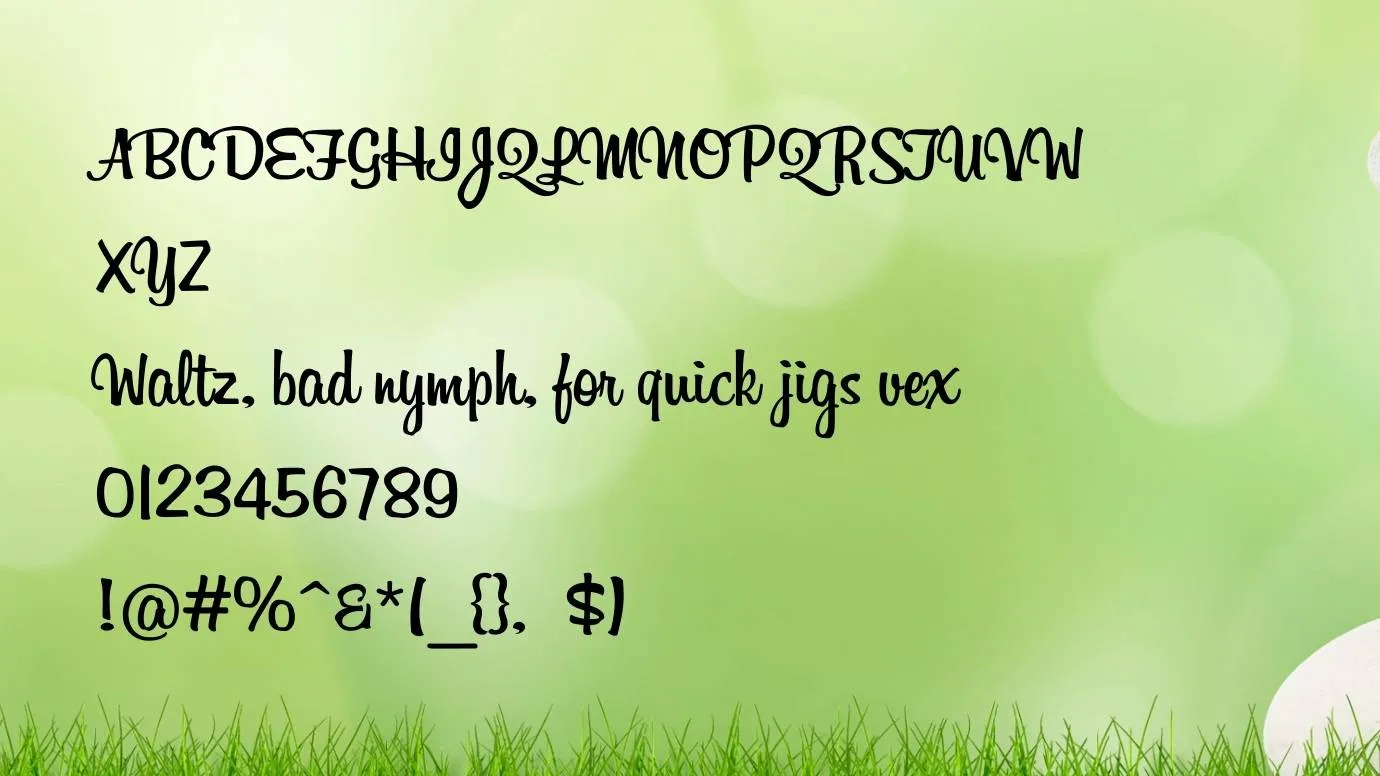
Billabong Font is a fancy display typeface that was designed using attractive brushes and a hand-drawn appearance. This font family comes with many different weights such as bold, italic, bold italic, regular, and many more. This typeface works great for many different designs with the pairing of cula font. This font also has vast lingual support and different Opentype features that can be found in both Adobe and Google Font libraries.
This font got very popular in no time because of the attractive glimpse and use of this typeface in the Instagram logo. This typeface is famous and is known for its pairing and copy-paste functions. Due to the clean nature of this typeface, it is used by many designers all around the World. It is a great typeface for making many different designs such as Posters, Logos, Banners, Theme design, Game interfaces, Images for websites and blogs, Banner, retargeting ads, Tutorial videos, Museum exhibitions, Directories, Signage, and many more.
Creator of Billabong Font
This is a fancy display typeface that was released by Font Foundry of Type Associates and was designed and developed by Russell Bean.
This font family comes with many different weights such as Billabong Regular, Billabong Italic, Billabong Medium Italic
- Billabong SemiBold Italic
- Billabong Bold Italic
- Billabong ExtraBold Italic
- Billabong Heavy Italic
- Billabong Ultra Italic
This typeface also comes with a set of different beautiful glimpses and glyphs that are very suitable for many different designs.
View of Billabong Font
What Type of Font Is Billabong?
This is a fancy hand-drawn display typeface that was designed by Russell Bean.
What’s the Closest Font to Billabong?
Lobster Font is the closest to this typeface.
Can I Use Billabong for My Logo?
Yes, this is a display font that was used in the Instagram logo as well. You can use it for creating many beautiful logo designs.